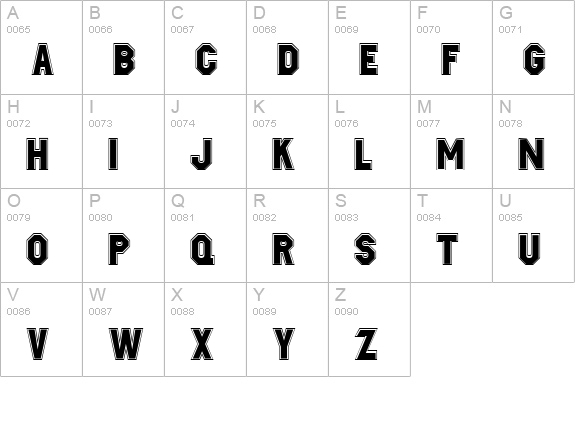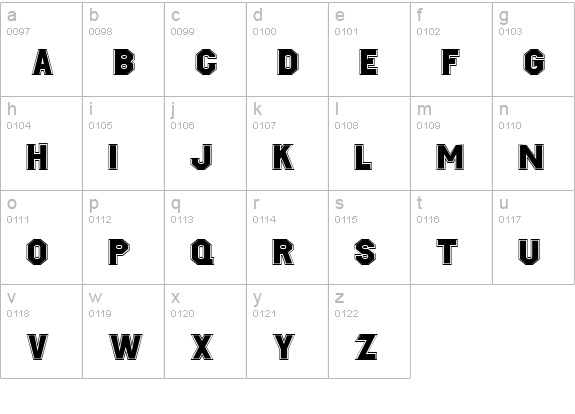
Jacobi Font Details
Jacobi font is a visually stunning typeface that effortlessly captures attention with its elegant and modern design. This font is perfect for adding a touch of sophistication and professionalism to any project, whether it be a logo, website, or print design. With its clean lines and balanced letterforms, Jacobi exudes a sense of clarity and refinement. The careful attention to detail in the curves and strokes of each character ensures legibility even at small sizes, making it ideal for both digital and print applications. One of the standout features of Jacobi font is its versatility. It can effortlessly adapt to a variety of design styles, from minimalistic and sleek to bold and expressive. This font is truly a chameleon that can elevate any design concept to the next level. What makes Jacobi even more appealing is that it is freely available to download at FontsMarket.com. This means that designers and creatives have the opportunity to access this remarkable font without any cost, making it an invaluable resource for those on a budget or simply looking to explore new design possibilities. Whether you are a professional designer or someone who enjoys experimenting with typography, Jacobi font is definitely worth considering. Its timeless appeal, versatility, and the fact that it is free to download make it a must-have in any font collection. So why wait? Head over to FontsMarket.com and get your hands on Jacobi font today.